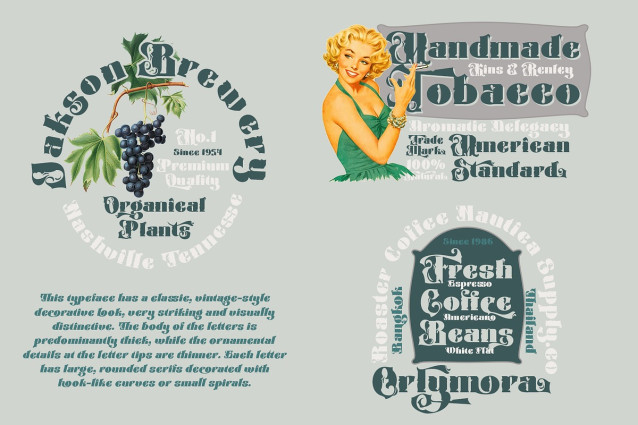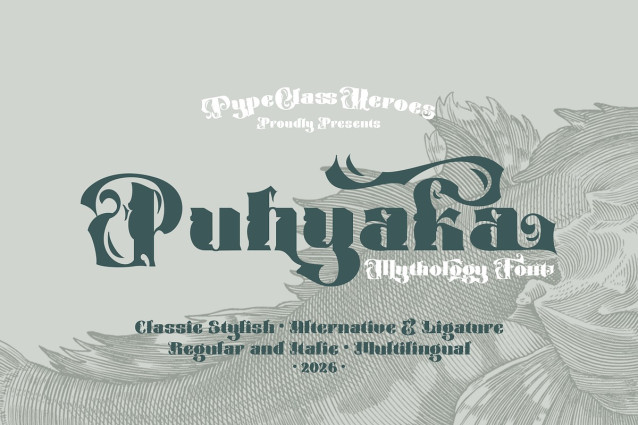
Puhyaka Font
Puhyaka Font, this typeface has a classic, vintage-style decorative look, very striking and visually distinctive. The body of the letters is predominantly thick, while the ornamental details at the letter tips are thinner. Each letter has large, rounded serifs decorated with hook-like curves or small spirals. This contrast makes the letters look dramatic and striking, giving them an artistic and classic feel.